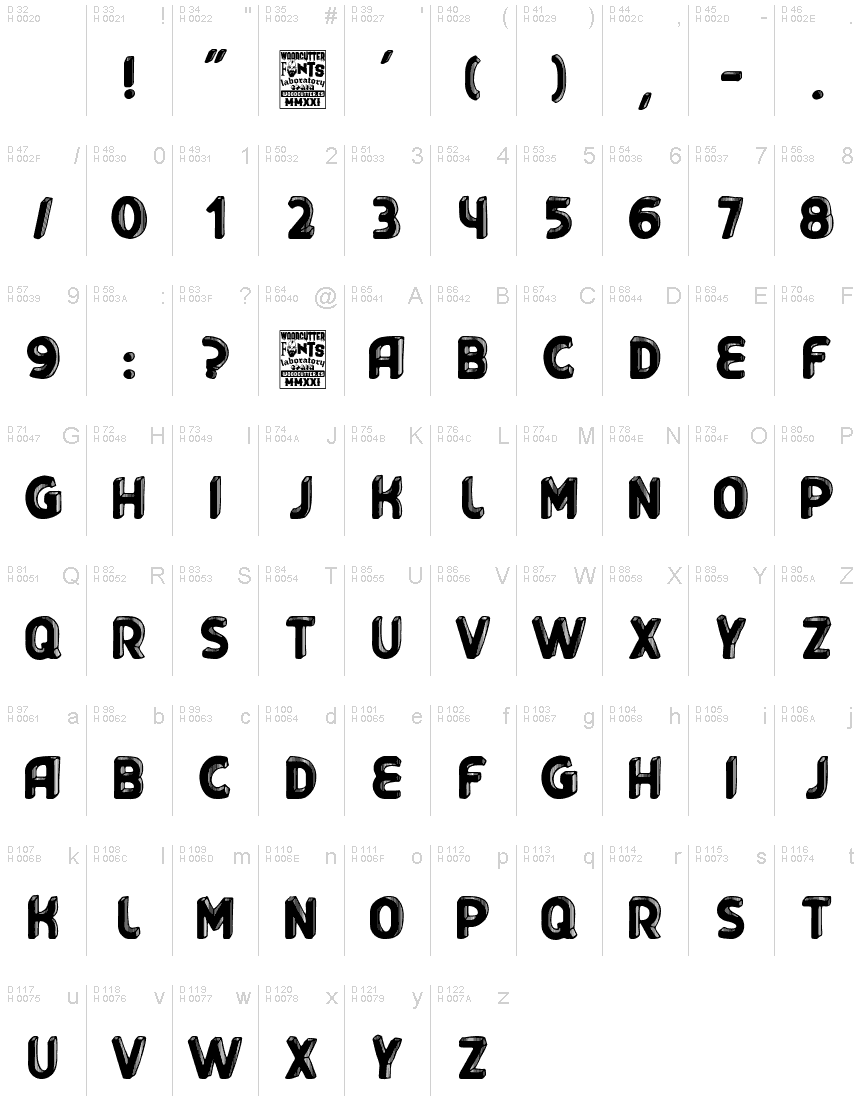
Maleantes Tres-d
Maleantes Tres-d is a bold and daring display font designed by Woodcutter. Its 3D effect adds depth and dimension to any project that demands attention. The unique style of this typeface makes it perfect for projects that require a powerful statement, such as posters, album covers, or branding materials. With its strong presence and intricate details, Maleantes Tres-d will make your message stand out from the crowd. Don't settle for ordinary typography - choose Maleantes Tres-d for an unforgettable design experience that leaves a lasting impression on your audience.